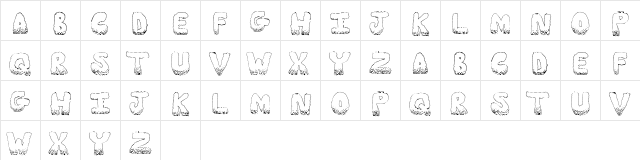
Munchies Regular
Foundry: Xerographer Fonts
Designer: Max Infeld
Design Context for Munchies
Munchies is a composed and adaptable typeface that performs quietly and consistently across a wide range of design contexts.
Pro Tip: Use Munchies in both headline and body roles to test its range before committing to a single application.